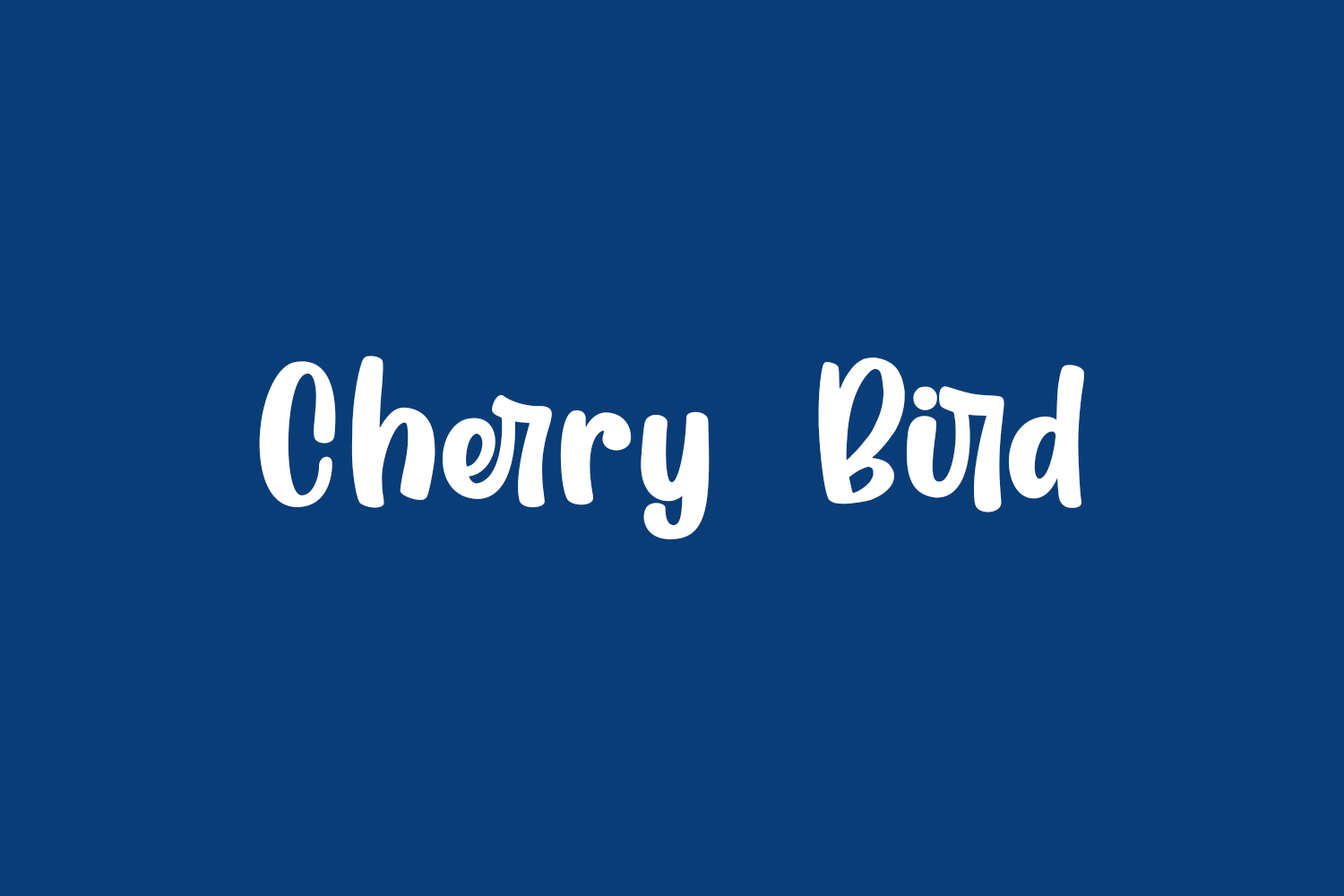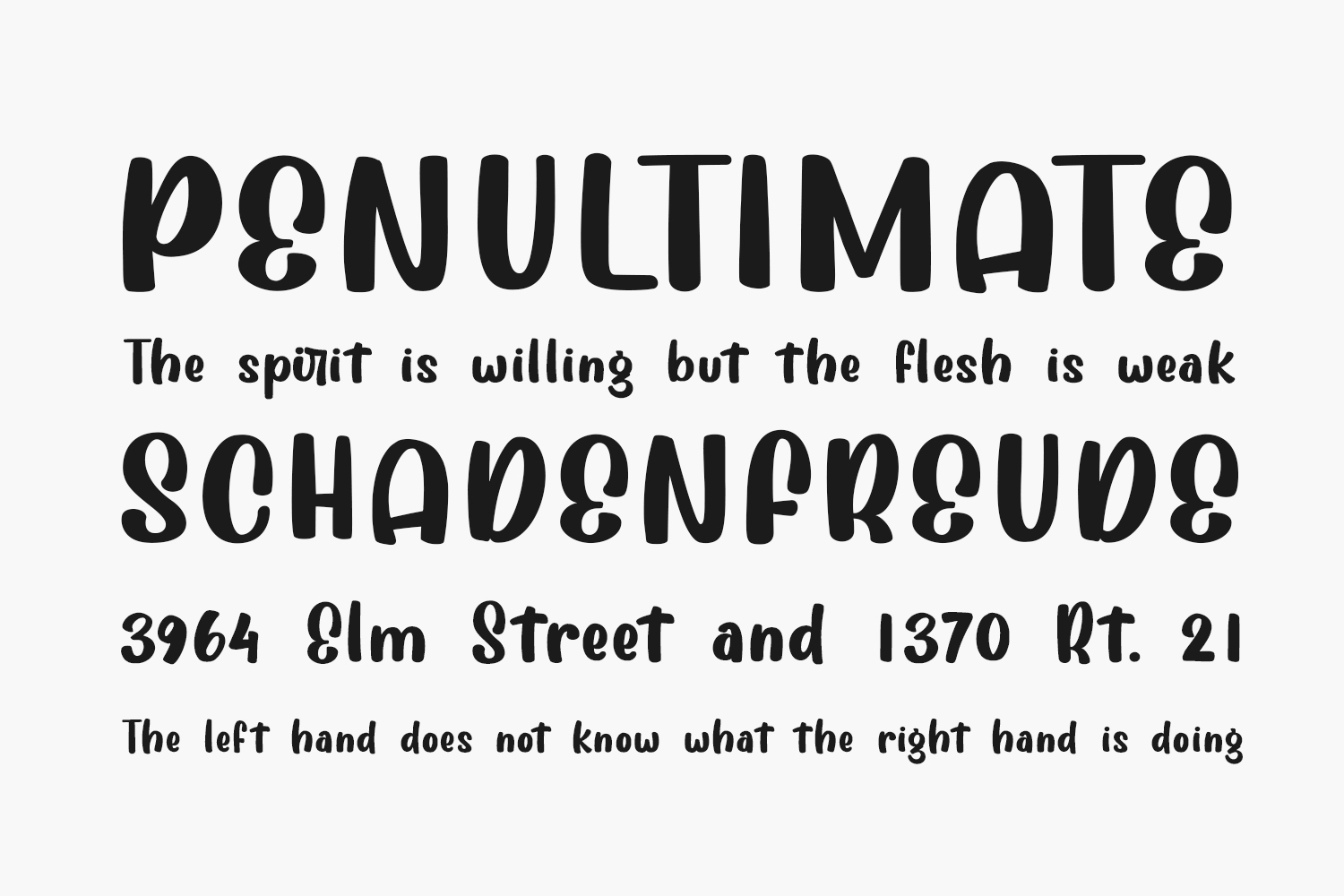
Cherry Bird Free Font is a bold and smooth handwritten font. It has a playful feel that will turn any crafting idea into a true standout. Cherry Bird Free Font is free for personal use only. Please purchase the full version for commercial use.
Designed by Rochart Studio